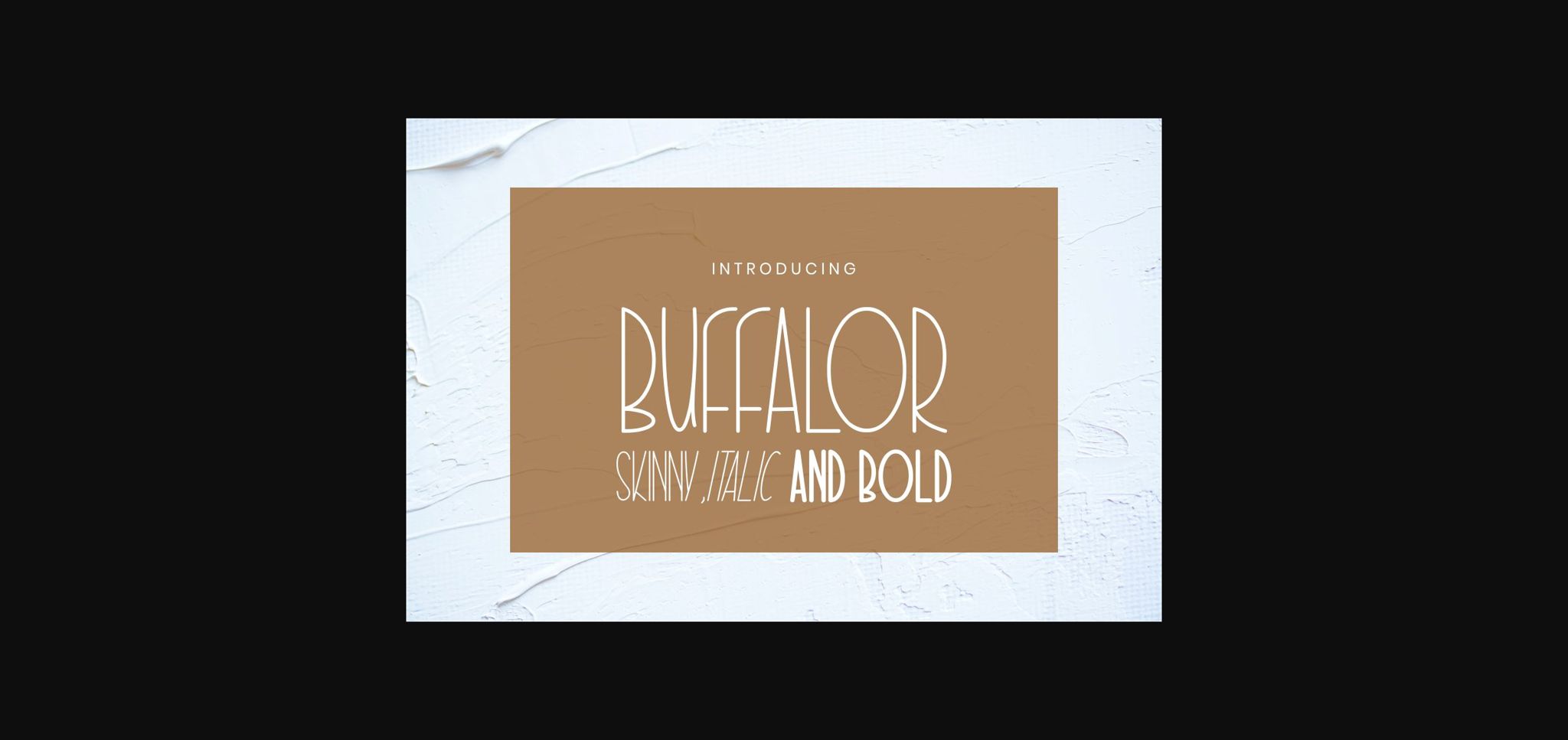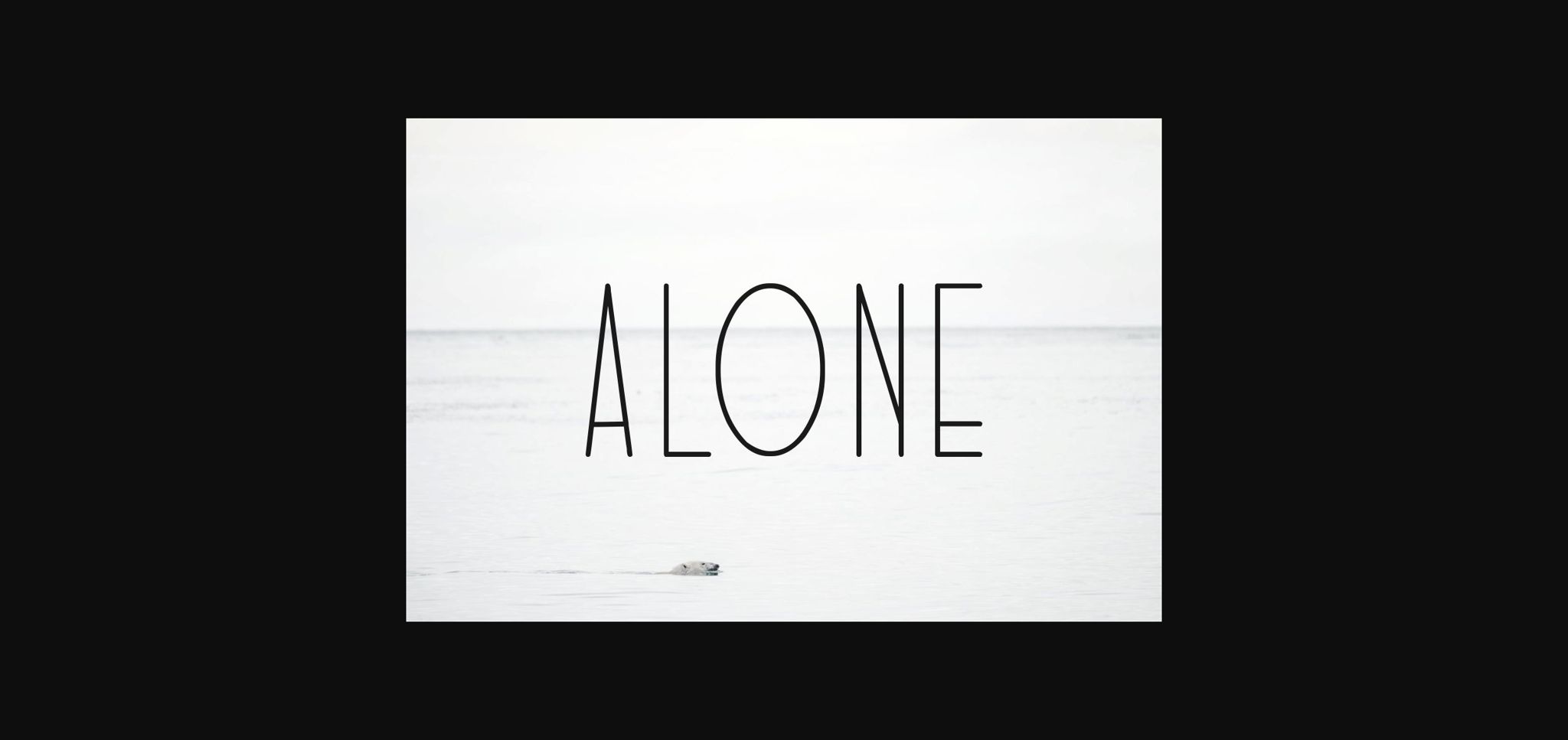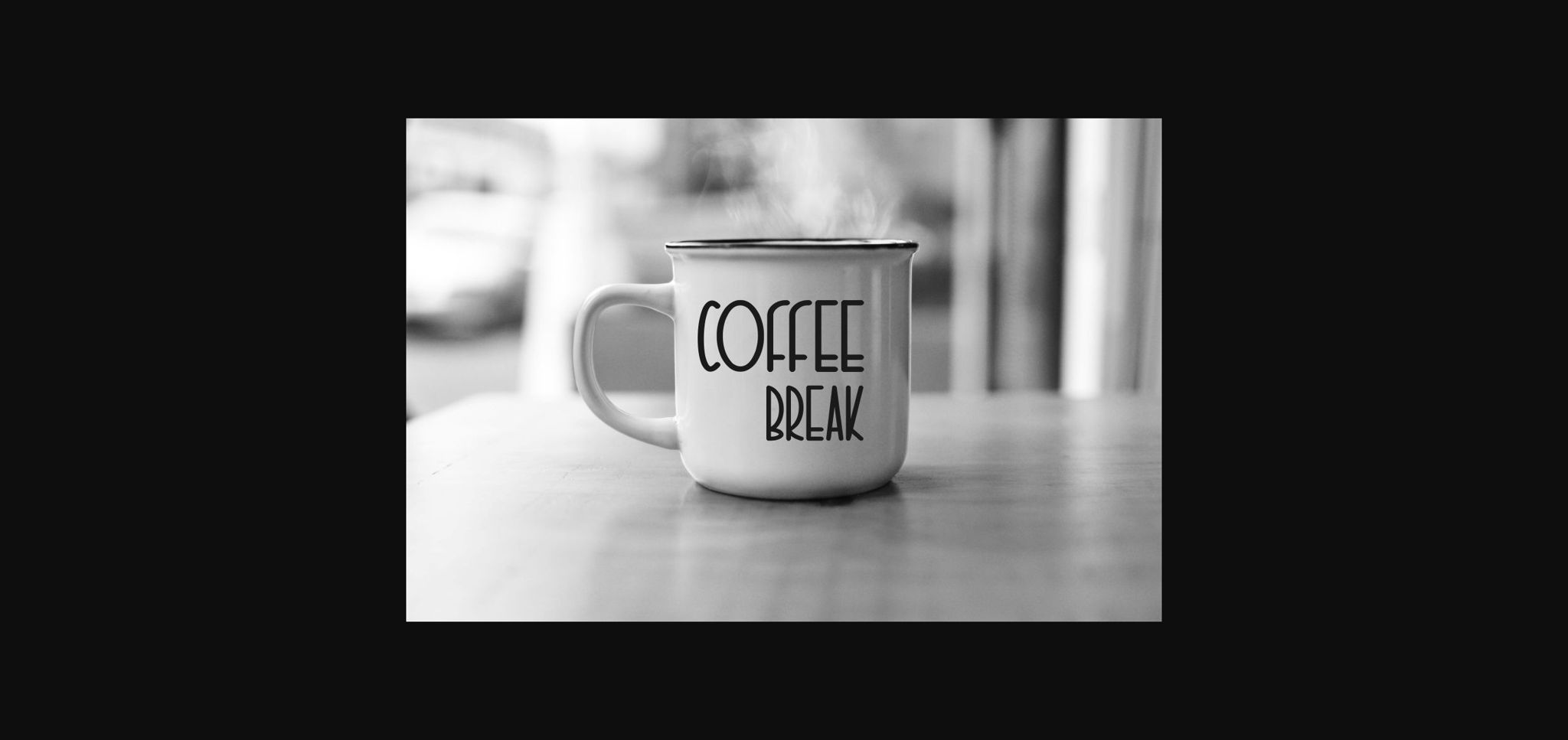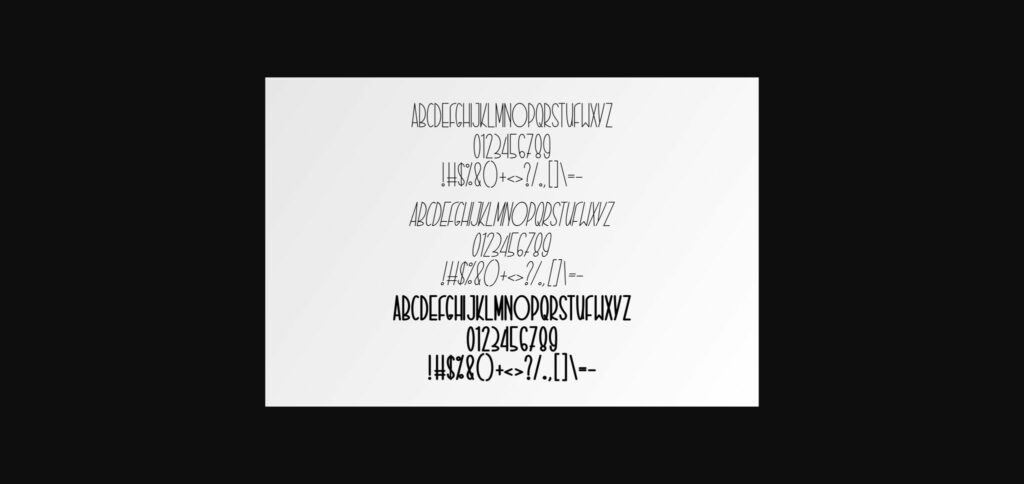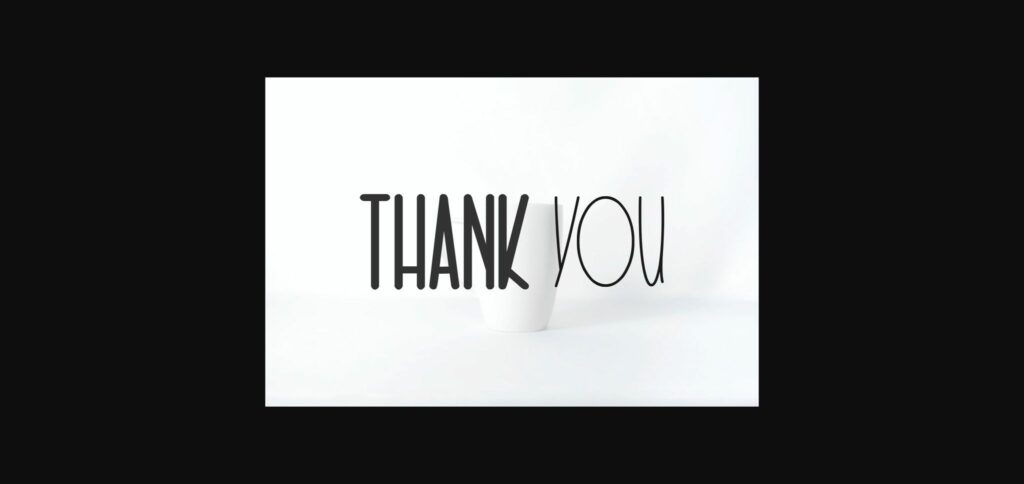
Buffalor Font
About Buffalor Font
Buffalor is a magical sans serif font carefully created with a touch of elegance. Whether you’re looking for fonts for Instagram or calligraphy scripts for DIY projects, this font will turn any creative idea into a true piece of art!